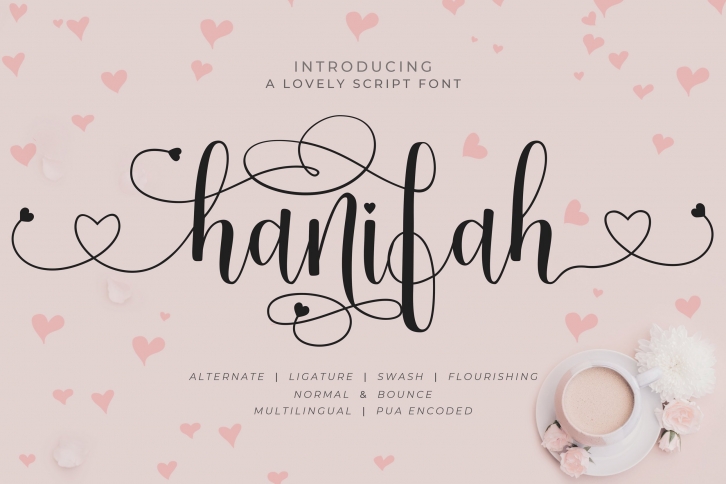
Hanifah Lovely Script is a trendy and unique font with an authentic style. It was designed by OCSstudio and it's a great choice for creative people who need such a font. It was released on February 13, 2021 and the file size is 7.40 MB. Hanifah Lovely Script will add an organic vibe to any design idea!